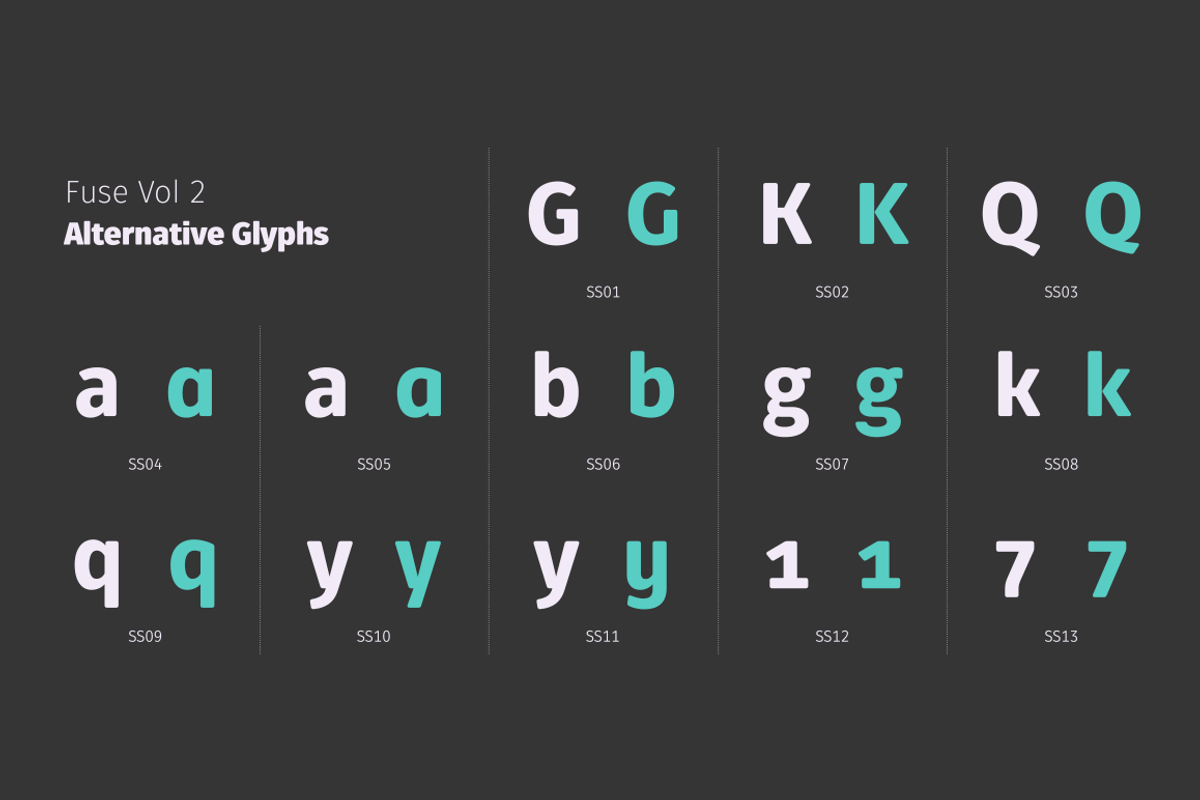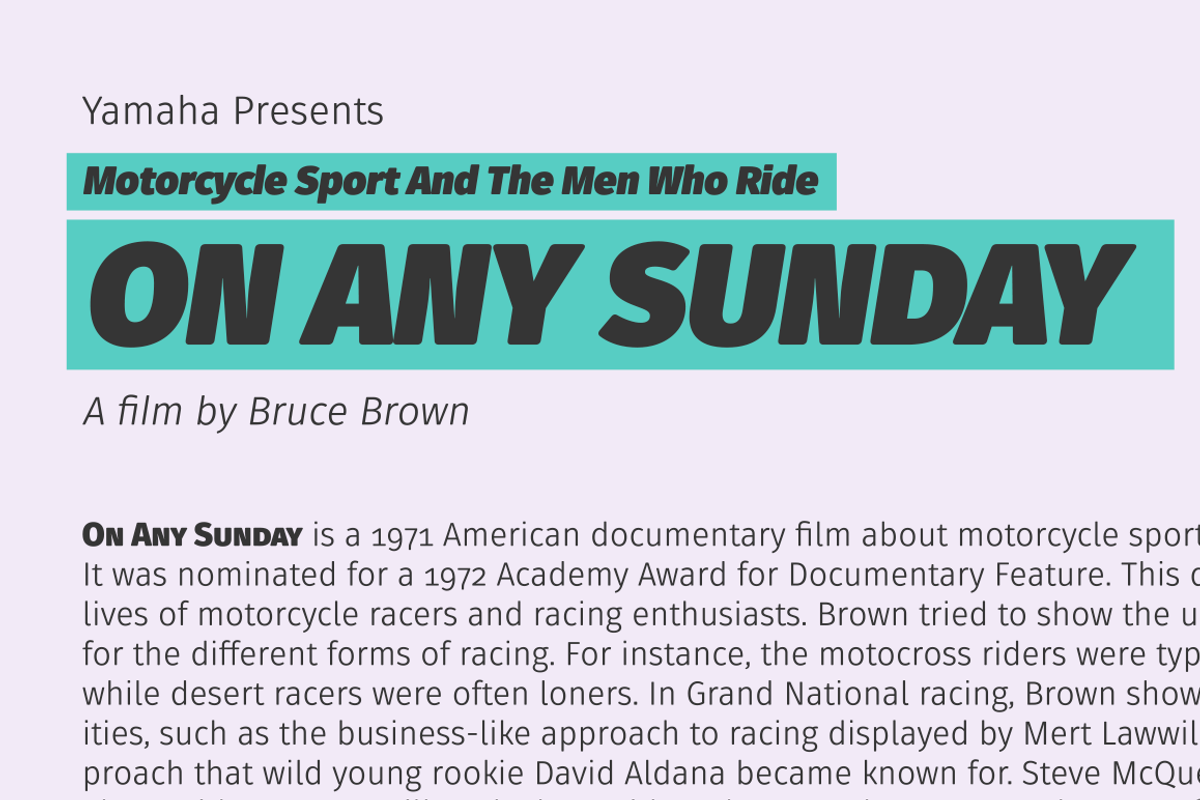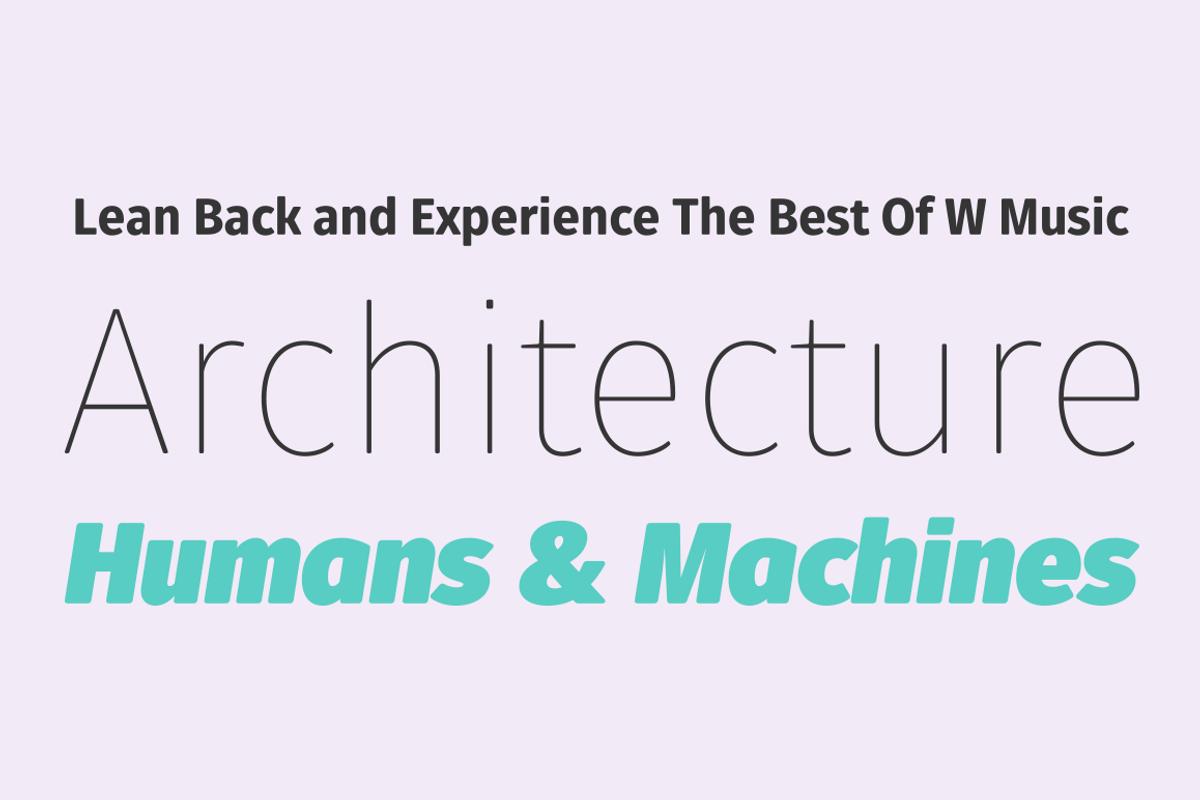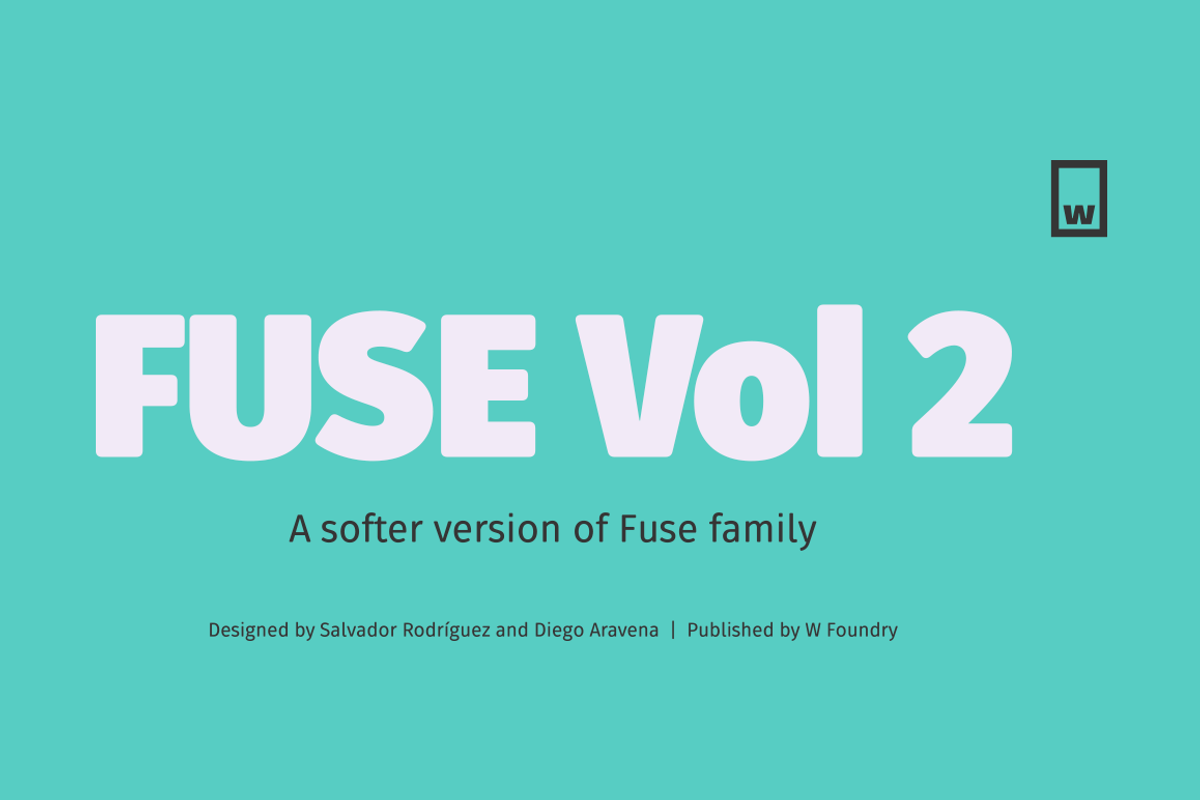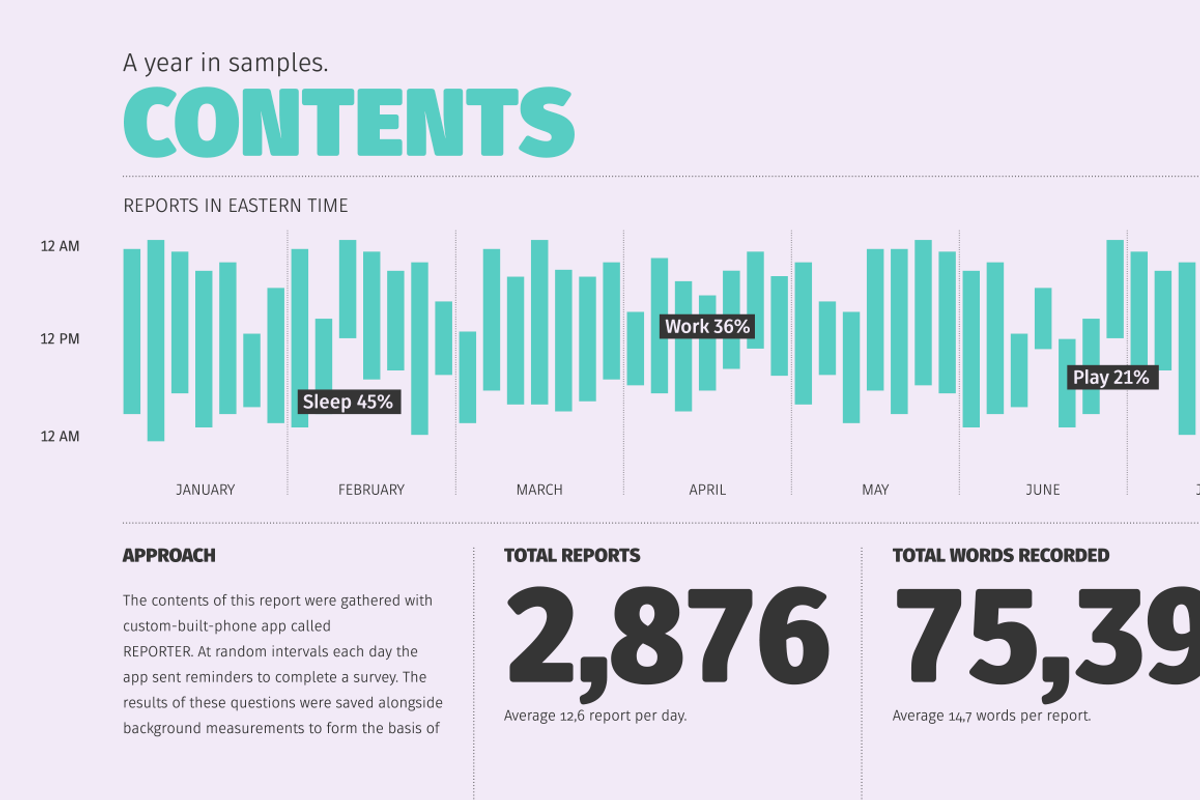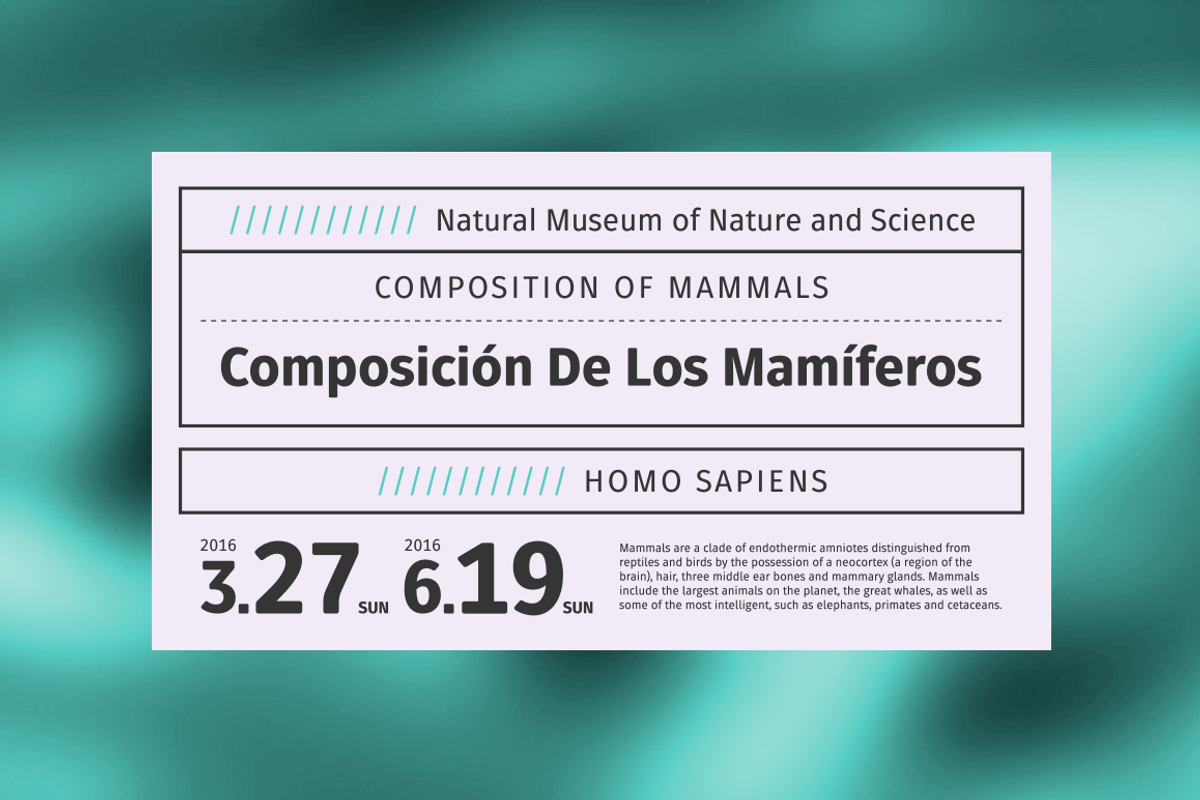
Fuse Vol 2 is an extension to our popular Fuse type family. All of the corners of the typeface’s character are rounded, making Fuse Vol 2 friendlier and more amiable variant of the original Fuse.
Designed with a powerful OpenType features in mind. Each weight includes alternate characters, ligatures, fractions, special numbers, arrows, extended language support , small caps and many more.. Perfectly suited for graphic design and any display / text use. The 32 fonts are part of the larger Fuse super family.
We’re proud to introduce: Fuse Vol 2.